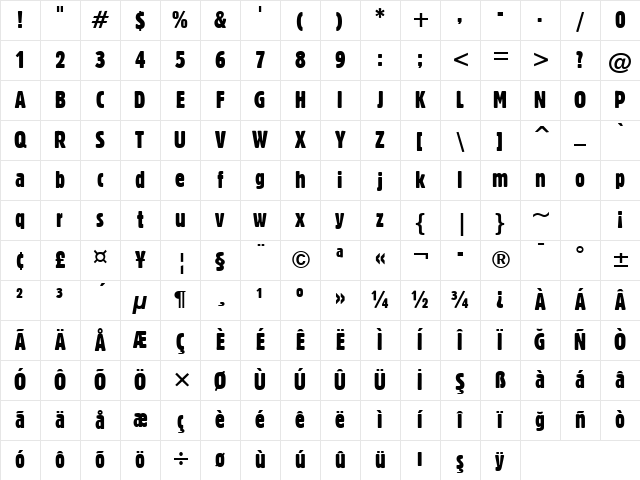
Gothic821 Cn BT Regular
Design Context for Gothic821 Cn BT
Gothic821 Cn BT takes a clean, functional approach - its unadorned letterforms prioritise legibility and work reliably across screen and print environments.
Font Pairing: Works well alongside a characterful serif or display font that can carry the expressive load while Gothic821 Cn BT handles the functional copy.
Pro Tip: Use Gothic821 Cn BT for UI labels, navigation, and short-form body copy where clean legibility is the priority.